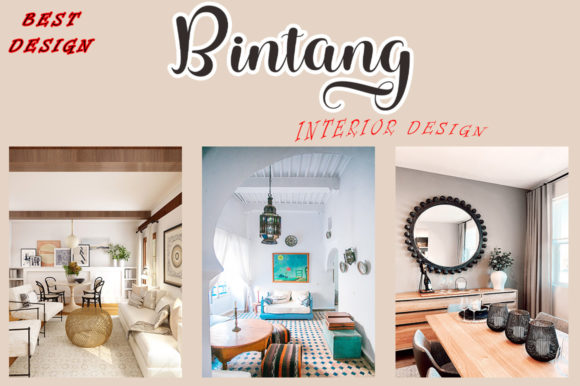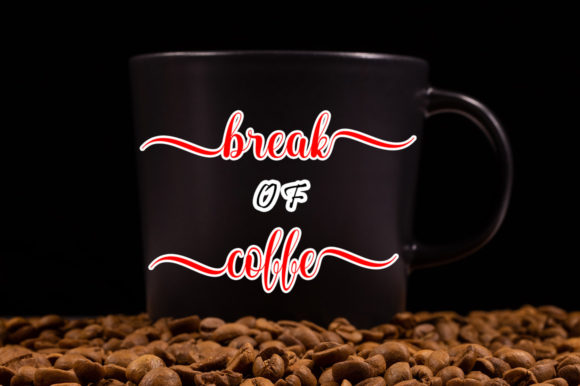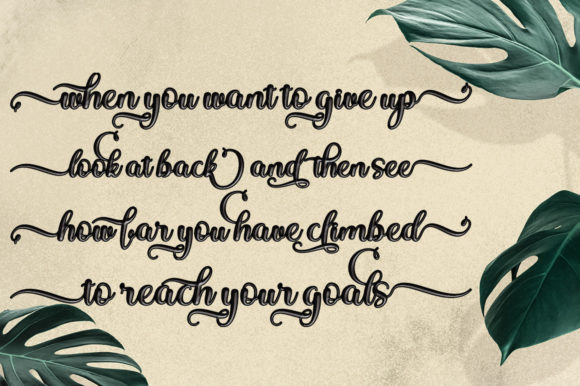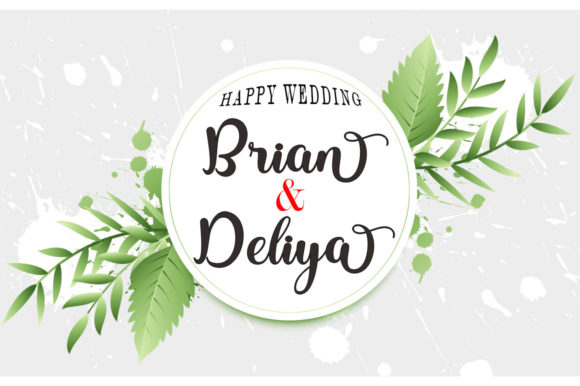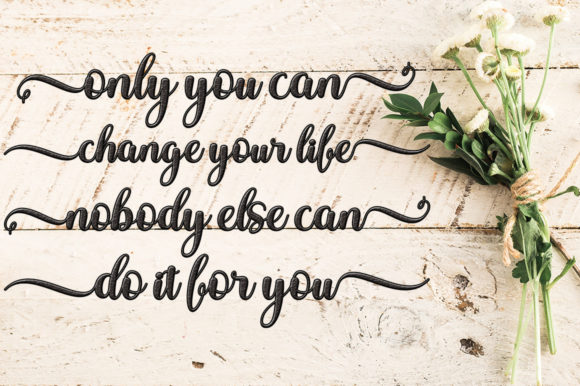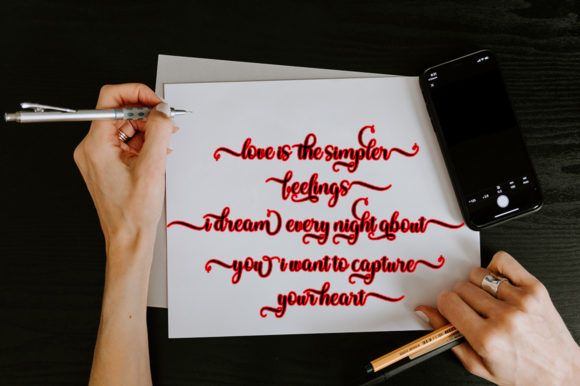
Bulan Font: Elevate Your Designs with Elegance and Sophistication
In the realm of typography, a font can make or break a design. For those seeking a touch of elegance and sophistication, the Bulan Font stands out as a stellar choice. This stylish and beautiful script font has been gaining attention for its balanced character and versatility, making it a perfect fit for a wide range of design projects. In this article, we’ll dive into the features, benefits, and uses of the Bulan Font, exploring why it’s becoming a favorite among designers and crafters.
What is Bulan Font?
Bulan Font is a meticulously crafted script font that exudes elegance and refinement. Its characters are beautifully designed to offer a balanced and harmonious look, which is essential for creating visually appealing designs. Whether you’re working on a branding project, a wedding invitation, or a packaging design, Bulan Font promises to add a touch of sophistication and luxury.
Key Features of Bulan Font
- PUA Encoded: One of the standout features of Bulan Font is its PUA (Private Use Area) encoding. This means that the font includes a wide range of glyphs and swashes that can be easily accessed and used to enhance your designs. The PUA encoding allows for greater flexibility and creativity, making it easier to customize your typography.
- Beautiful and Balanced Character: Each character in the Bulan Font is carefully designed to ensure a beautiful and balanced look. This attention to detail makes the font highly versatile and suitable for various design applications.
- Stylish and Elegant: The overall aesthetic of Bulan Font is stylish and elegant, making it perfect for designs that require a touch of sophistication. From luxury brands to high-end events, this font can help elevate your design to the next level.
Benefits of Using Bulan Font
Choosing the right font for your design project can be daunting, but Bulan Font offers several benefits that make it an attractive choice:
- Versatility: Bulan Font can be used across a variety of design projects, including branding, advertising, packaging, and more. Its elegant and stylish appearance makes it suitable for both digital and print designs.
- Easy to Use: Thanks to its PUA encoding, Bulan Font is easy to work with. Designers can effortlessly access and incorporate the various glyphs and swashes into their designs, allowing for greater creativity and customization.
- Unique and Memorable: In a sea of generic fonts, Bulan Font offers a unique and distinctive look that can help your designs stand out. Its elegant appearance ensures that your typography will be memorable and impactful.
Who Can Benefit from Bulan Font?
Bulan Font is an excellent choice for a wide range of designers and crafters, including:
- Graphic Designers: Whether you’re working on a branding project or creating marketing materials, Bulan Font can add a touch of elegance and sophistication to your designs.
- Wedding and Event Planners: For those planning weddings or events, Bulan Font is perfect for creating beautiful invitations, programs, and other event materials.
- Packaging Designers: If you’re involved in packaging design, Bulan Font can help create eye-catching and luxurious packaging that stands out on store shelves.
- Crafters and DIY Enthusiasts: For crafters and DIY enthusiasts, Bulan Font can be used to add a personal touch to handmade cards, scrapbooking, and other craft projects.
How to Use Bulan Font Effectively
To make the most of Bulan Font, consider the following tips:
- Pair with Complementary Fonts: Combine Bulan Font with complementary fonts to create visual interest and hierarchy in your designs.
- Experiment with Swashes: Take advantage of the font’s PUA encoding to experiment with different swashes and glyphs, adding a unique touch to your typography.
- Use for Headlines and Titles: Bulan Font is perfect for headlines and titles, where its elegant and stylish appearance can make a significant impact.
| Font Name | Bulan Font |
Bulan Font is a stylish and beautiful script font that offers elegance, sophistication, and versatility. Its PUA encoding, beautiful character design, and ease of use make it an excellent choice for a wide range of design projects. Whether you’re a graphic designer, a wedding planner, or a crafter, Bulan Font can help elevate your designs to new heights. With its unique and memorable appearance, Bulan Font is sure to leave a lasting impression on your audience.